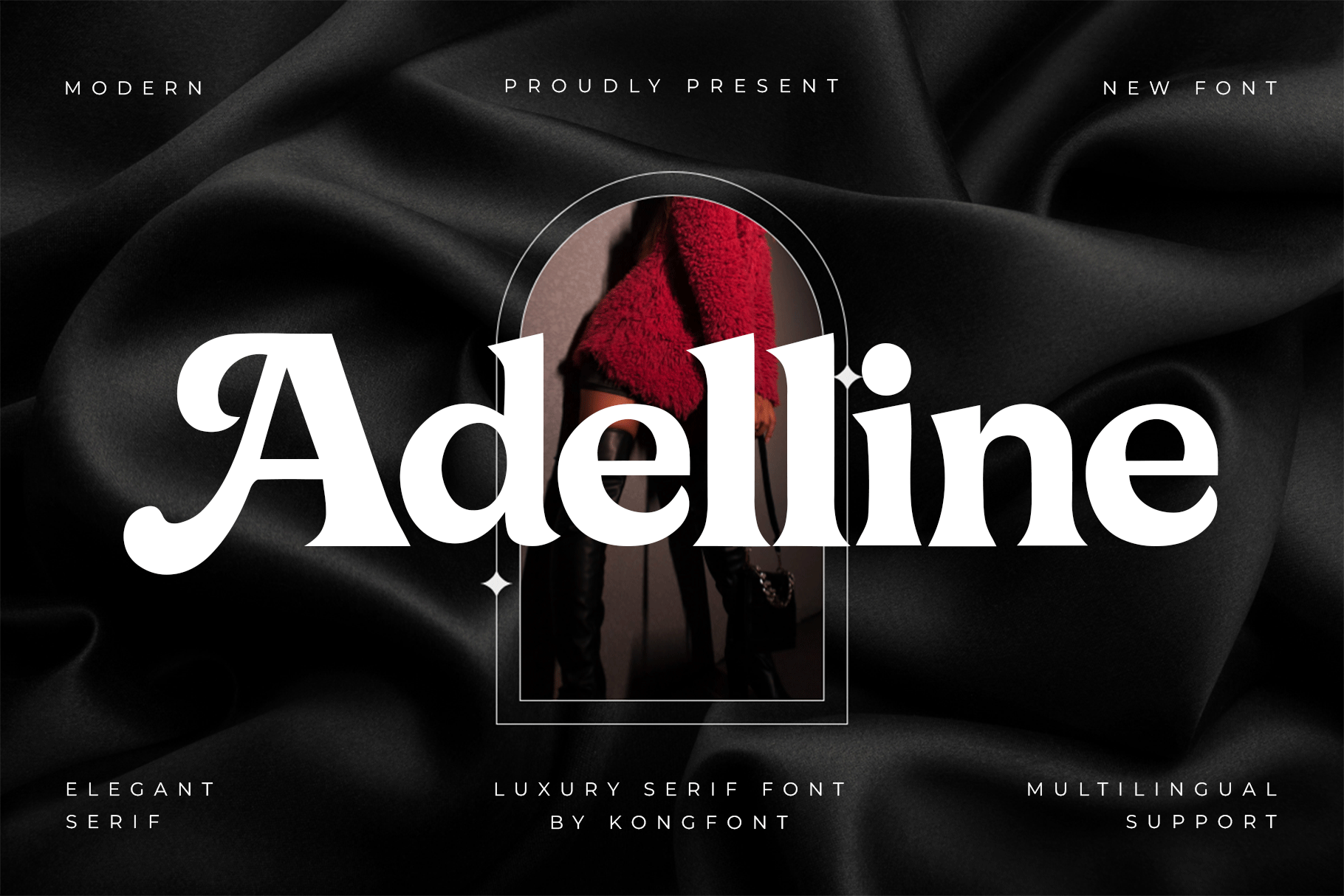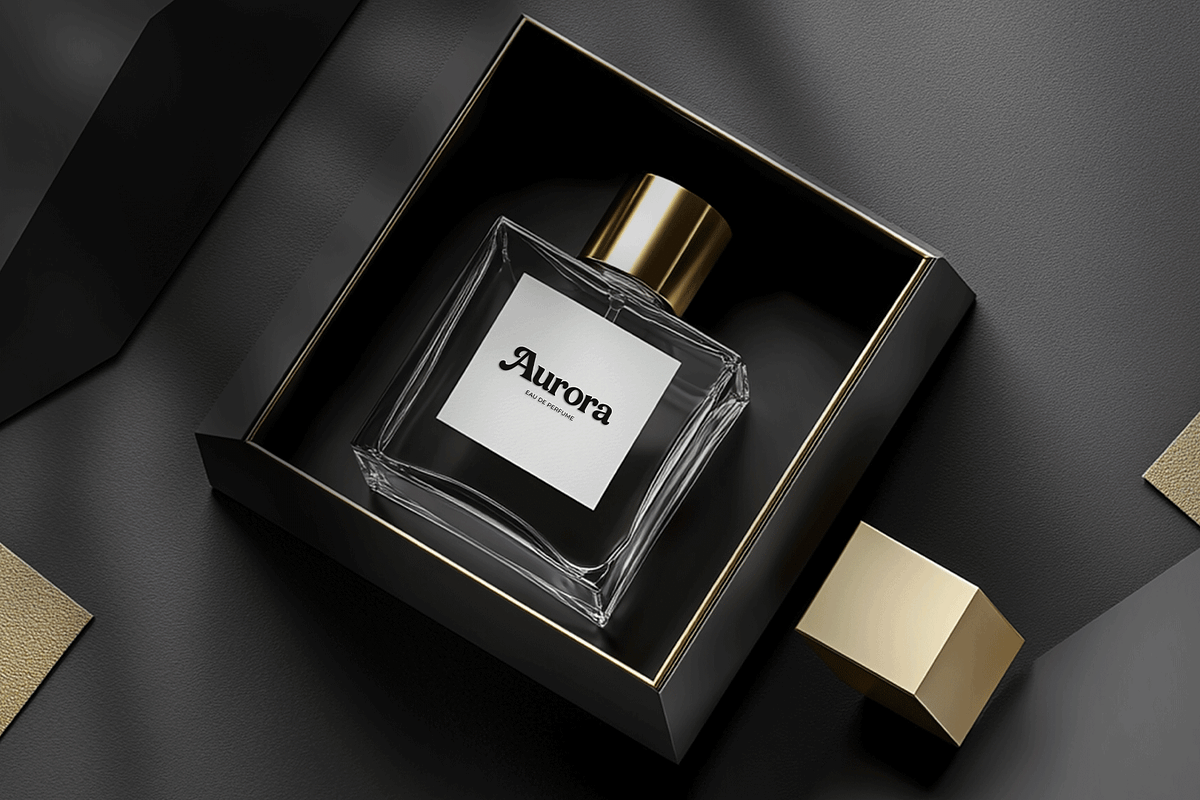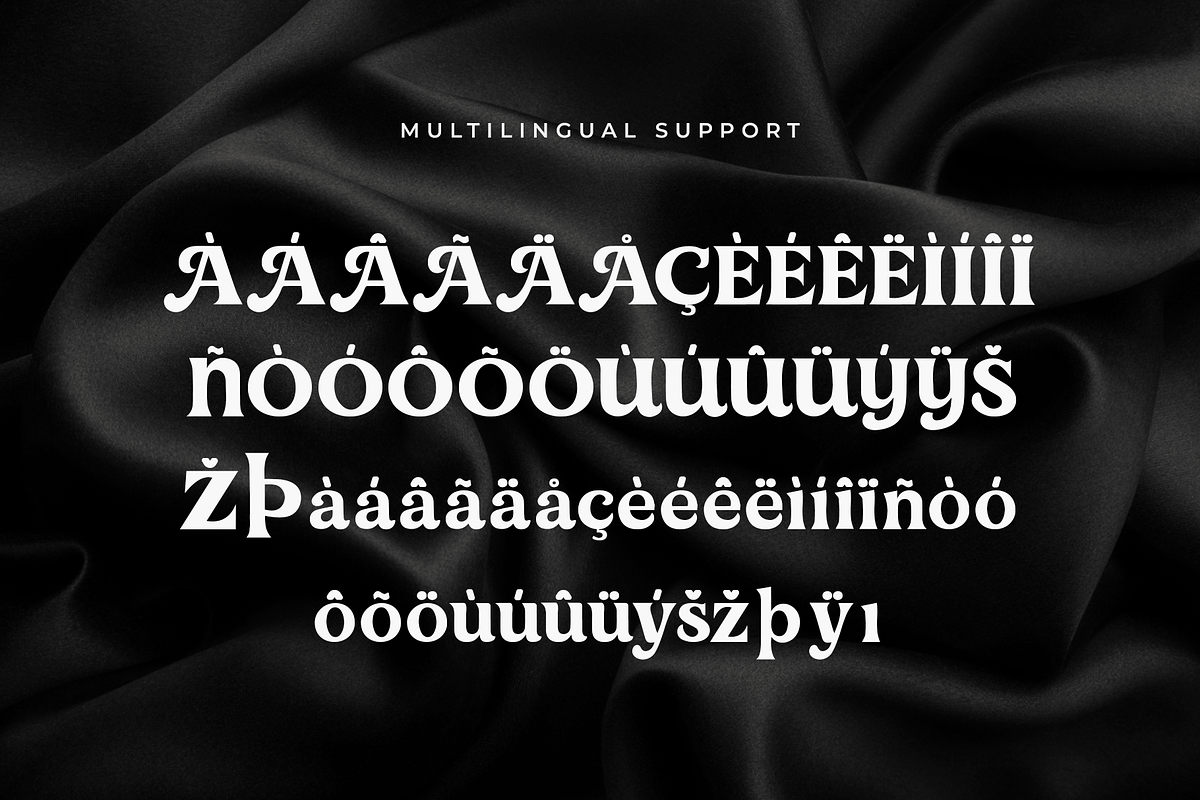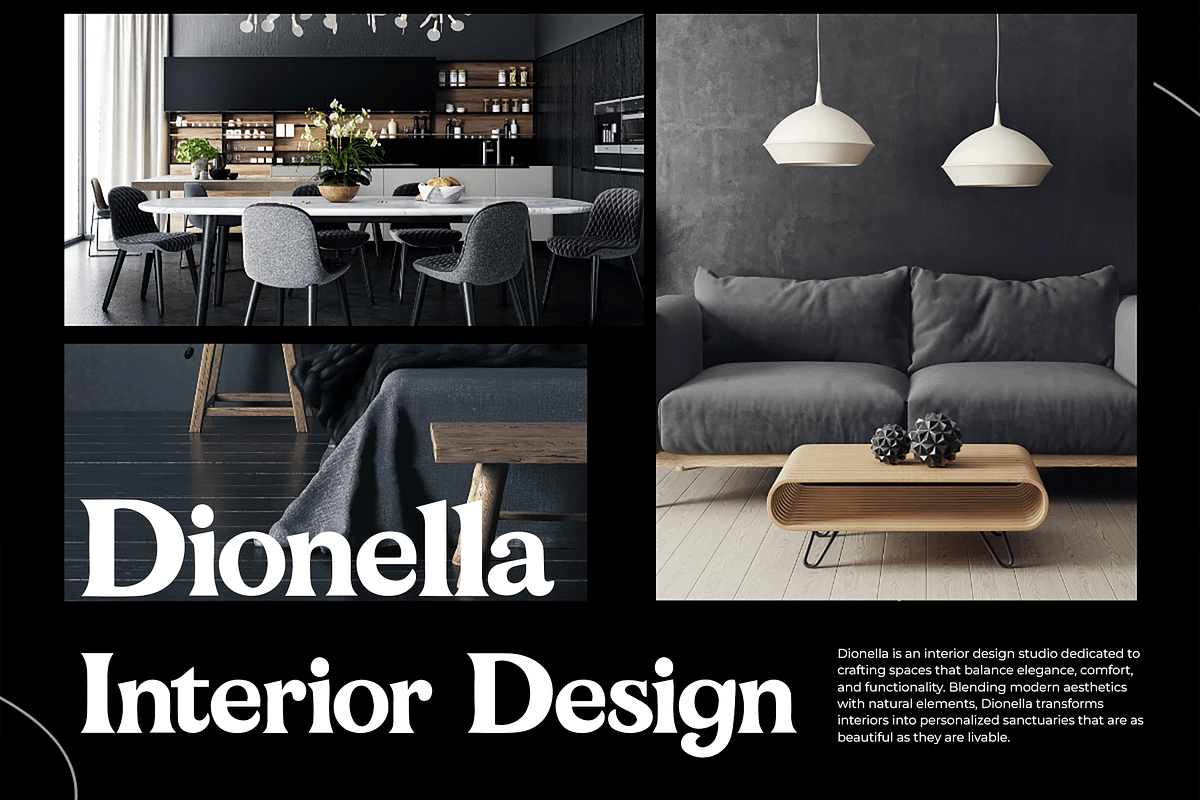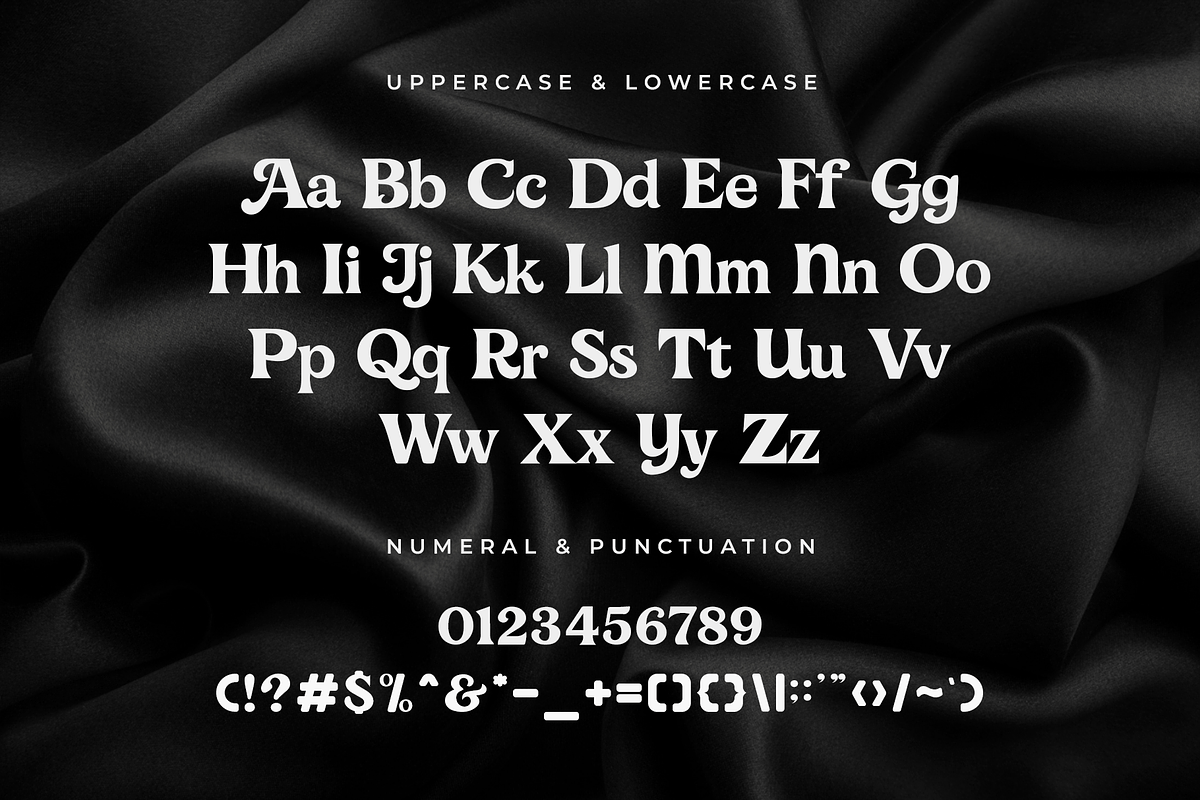
Adelline – A Luxury Serif Font
Introducing Adelline, a luxury serif font that radiates timeless elegance and sophistication. Designed with graceful curves, high contrast strokes, and classic proportions, Adelline brings a premium feel to any design project from upscale branding and editorial layouts to wedding invitations and luxury packaging.
Its stylish serifs and refined letterforms make Adelline ideal for high-end fashion labels, beauty products, jewelry branding, and boutique businesses seeking a touch of classic charm with a modern twist. Featuring uppercase and lowercase characters, punctuation, numerals, ligatures, and multilingual support, this typeface is as versatile as it is beautiful.
Let your design speak with prestige and poise Adelline is the serif you need when only the finest will do.